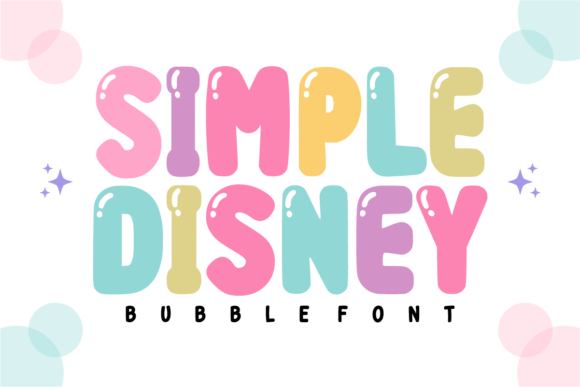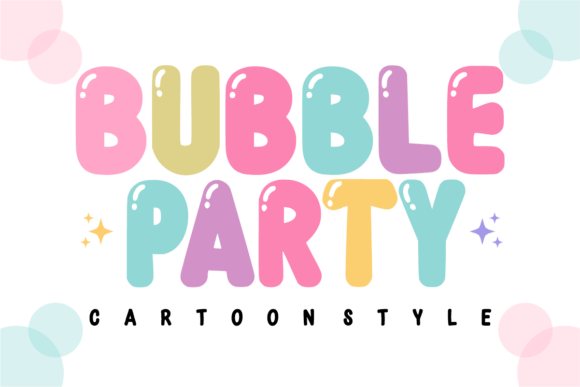
Introduction to Master Bubble Font Font
Fonts play a crucial role in design, and the Master Bubble Font font is a typeface that brings both character and versatility to any project. Whether you’re working on a branding project, a website, or a print design, the Master Bubble Font font offers a unique style that can elevate your work.
β¨ Master Bubble β Cute, Bold, and Glossy Display Font β¨ Make your designs βpopβ with Master Bubble.
This font is the definition of fun, featuring a super-chunky bubble shape with a charming glossy highlight effect that mimics real bubbles or balloons Designed to bring a βcute, bold, and happyβ vibe to every character, itβs the perfect choice for eye-catching kid-focused branding.
Key Features of Master Bubble Font Font
Why Choose Master Bubble Font Font?
The Master Bubble Font font is more than just a typeface β it’s a design tool that helps you communicate your message with style and clarity. Its unique character set and versatile design make it suitable for a wide range of applications, from elegant invitations to bold headlines.
With its carefully crafted letterforms and balanced proportions, the Master Bubble Font font ensures readability and visual appeal across all mediums.
What makes Master Bubble Font font special?
The Master Bubble Font font stands out with its unique design, exceptional readability, and versatility across various design applications.